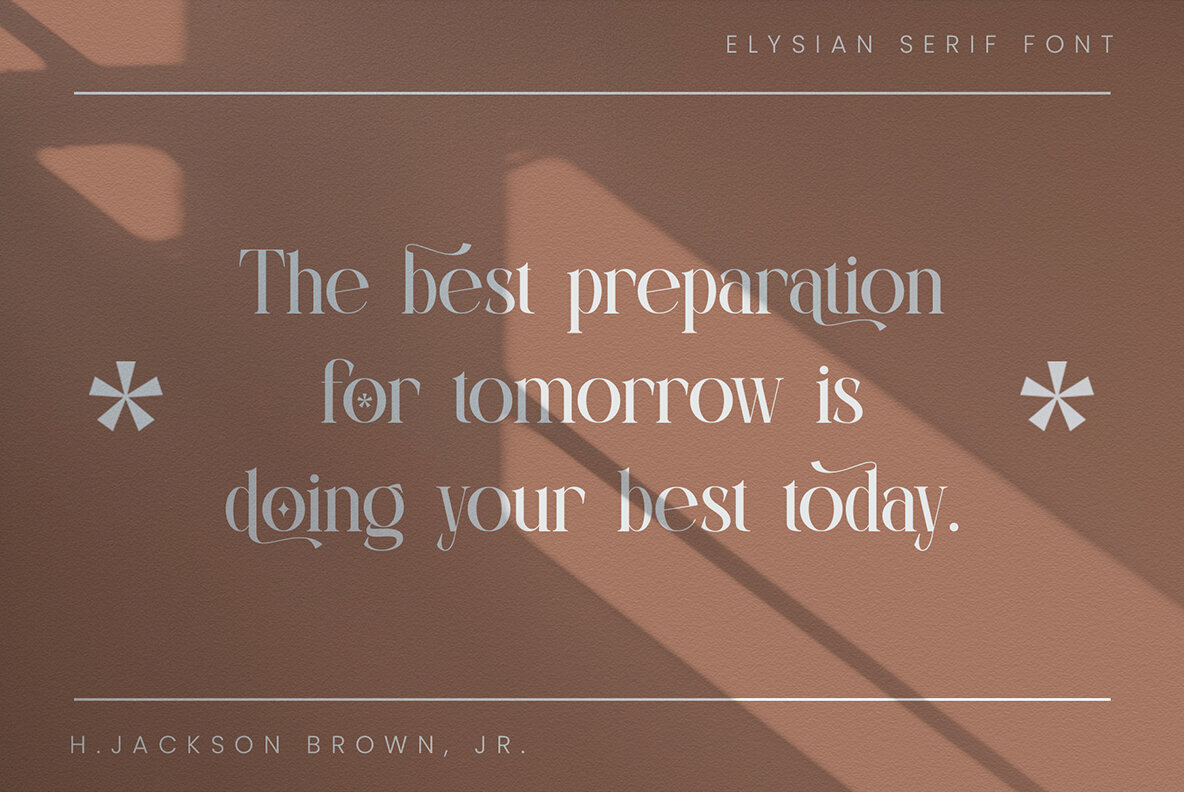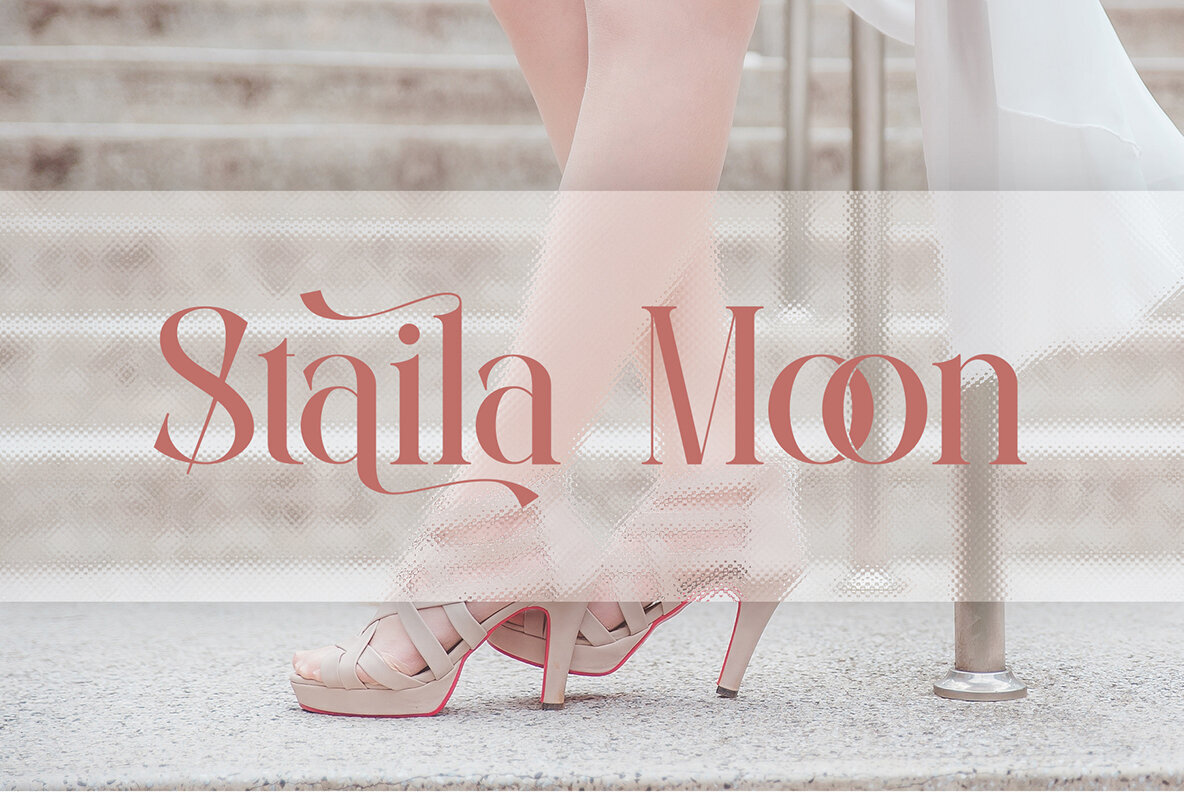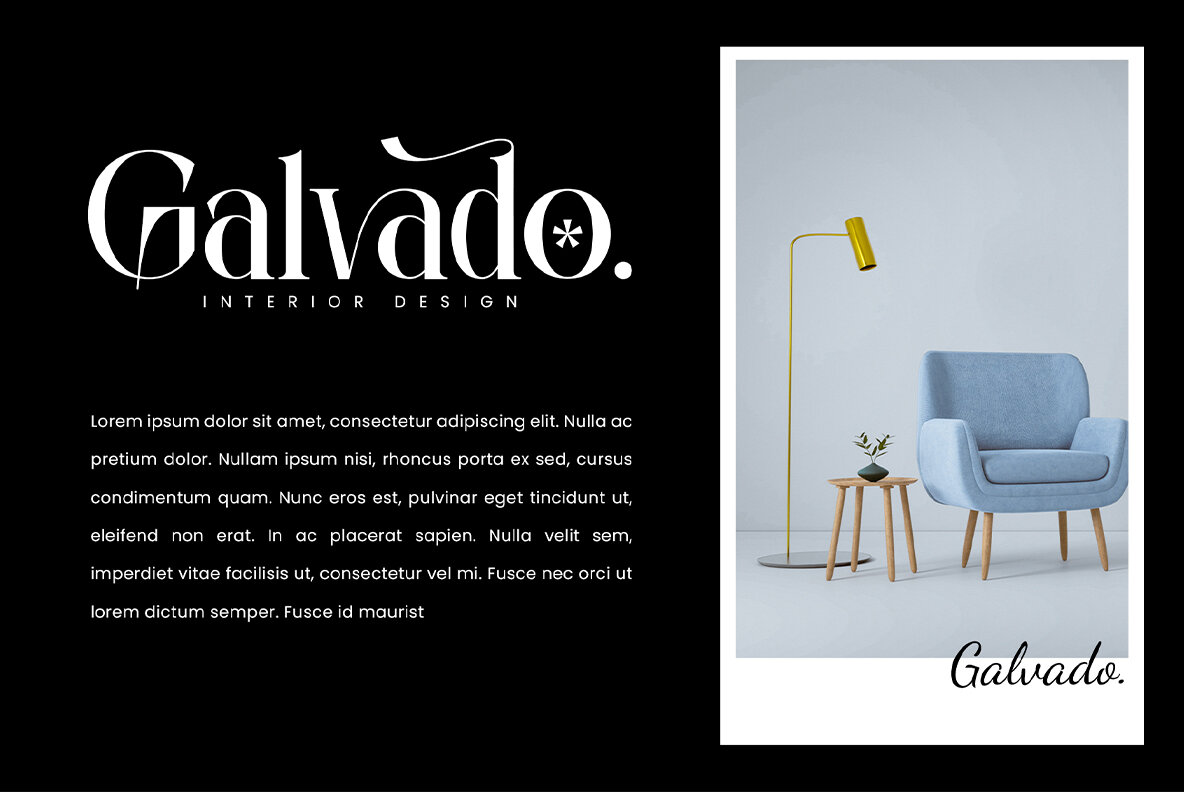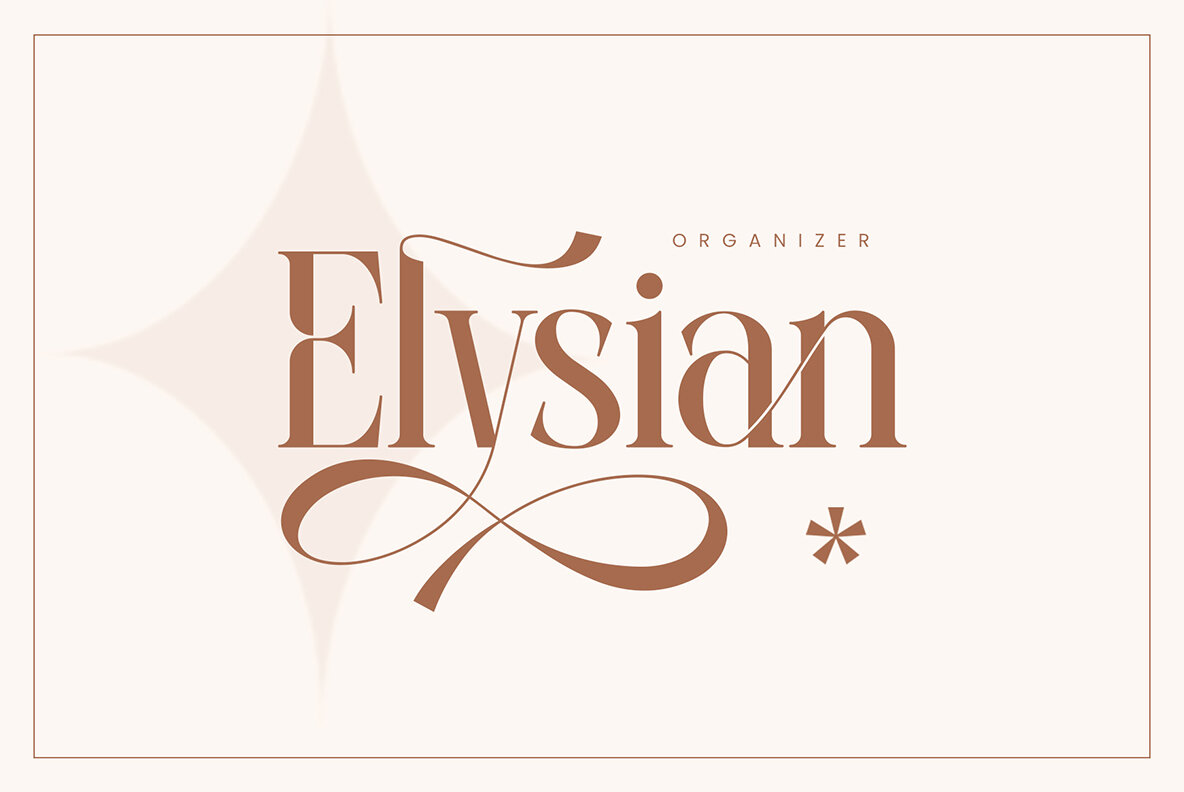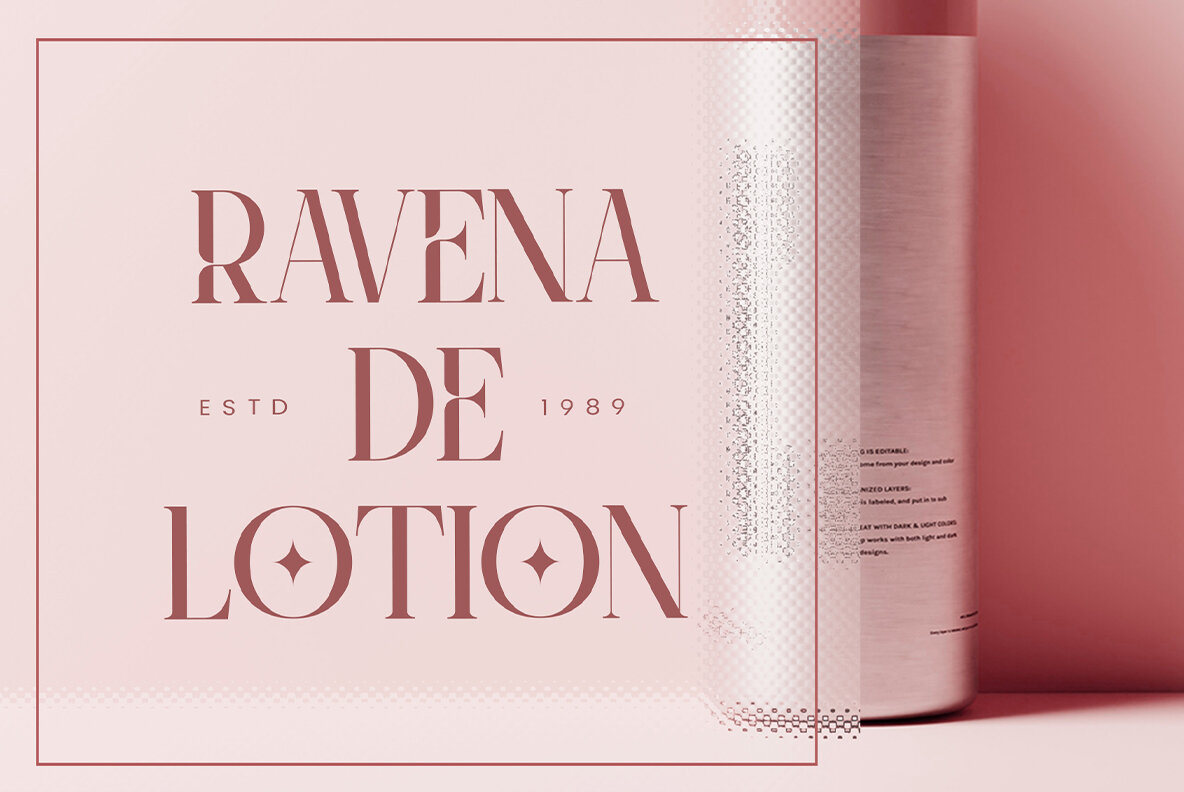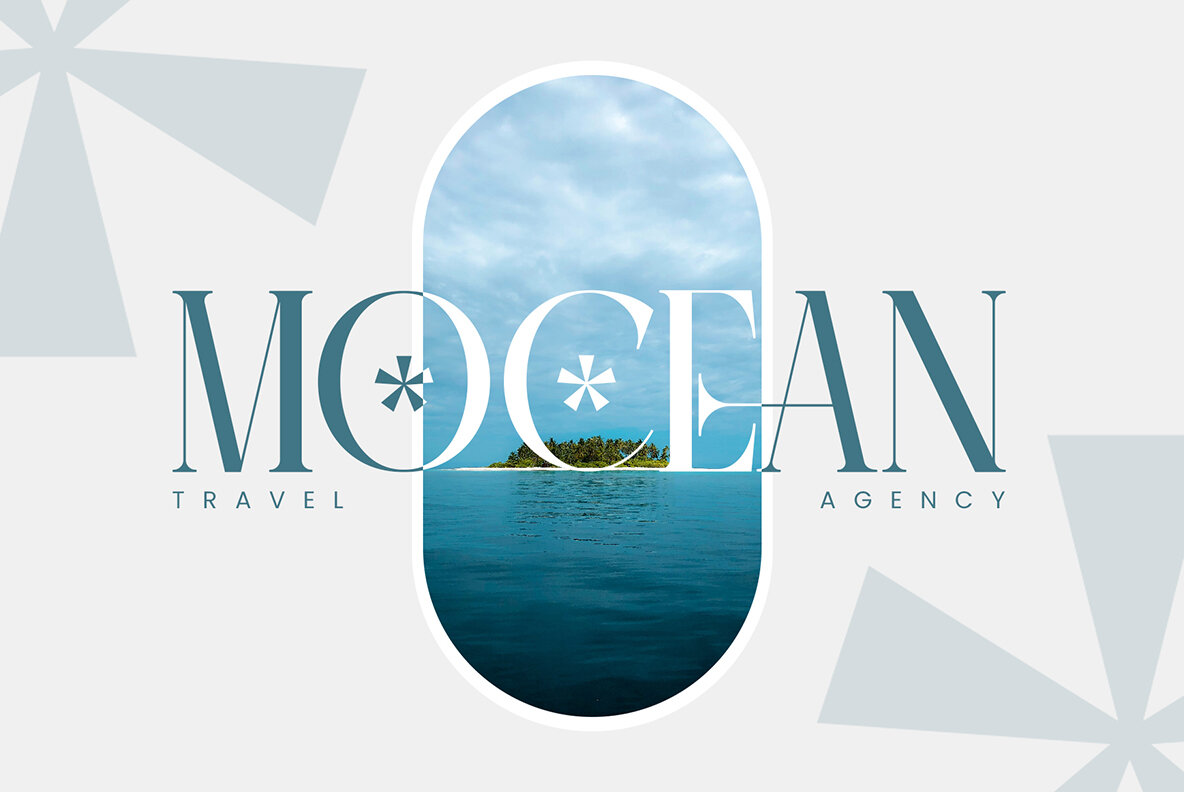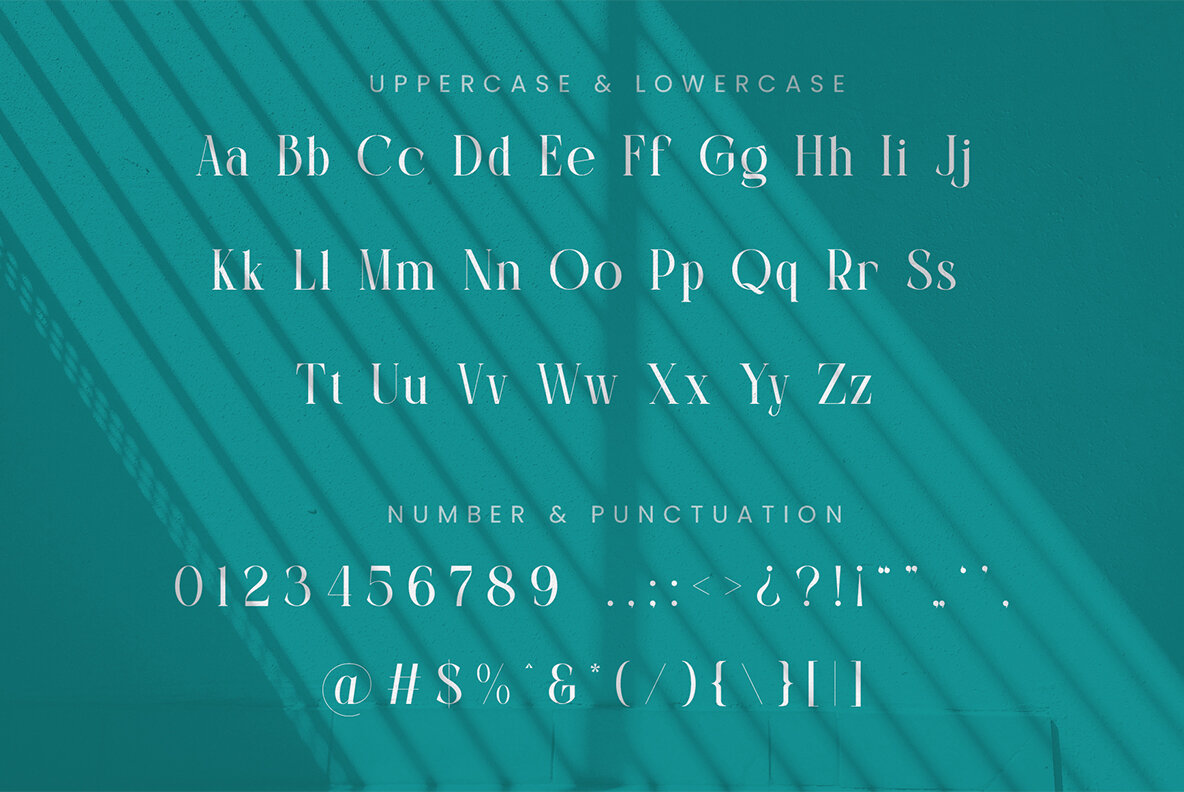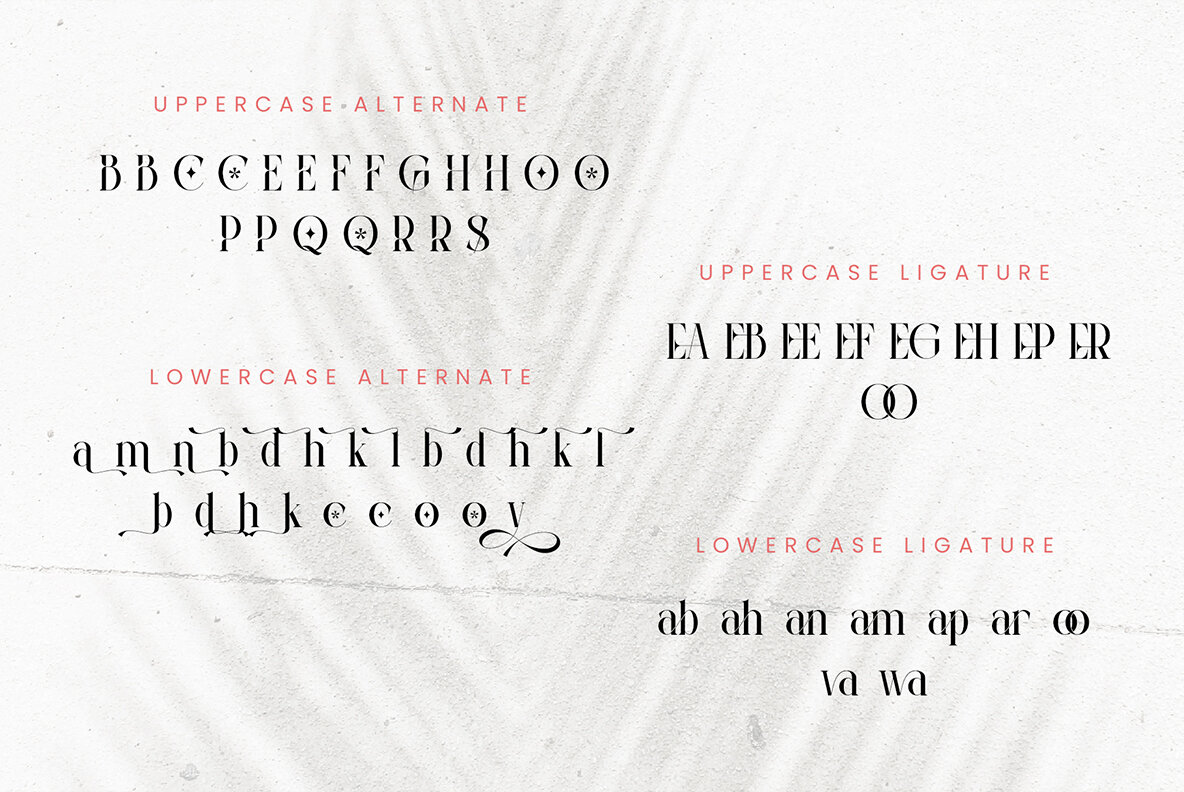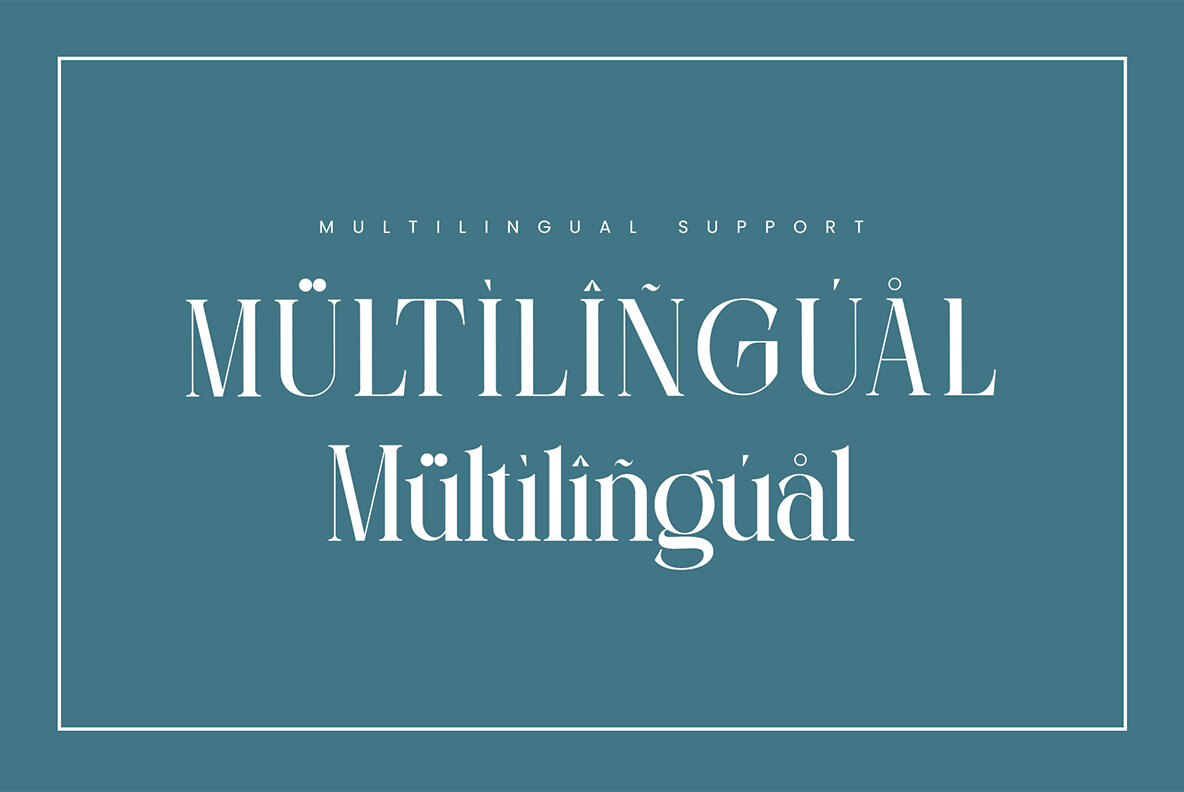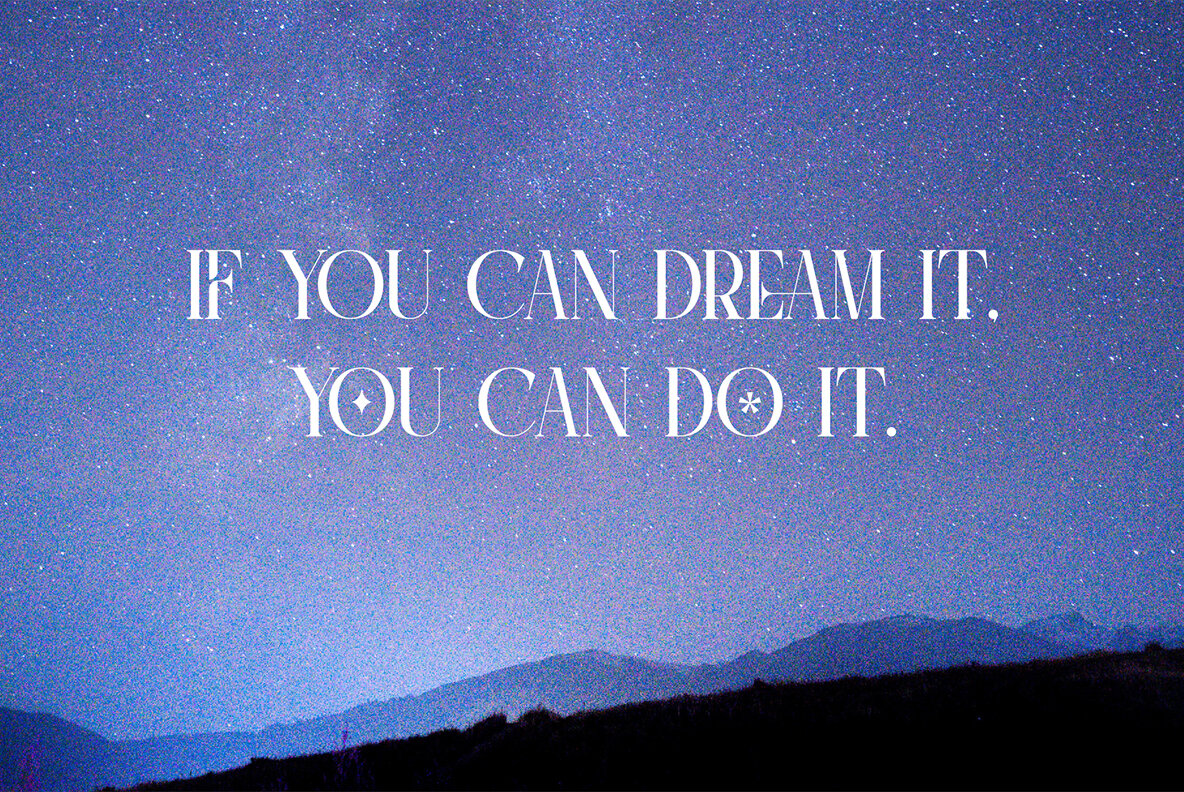
Clamoe Font
Clamoe Regular
Clamoe Serif is an exquisitely balanced and smooth serif font, distinguished by its elegant style and appealing character. Ideal for a multitude of design applications, it seamlessly integrates into invitation card designs, company logos, movie titles, business cards, book titles, brand names, and more. This serif font is infused with subtle sophistication, making it a versatile choice for any creative endeavor.Clamoe Serif: Balanced and Elegant Typography